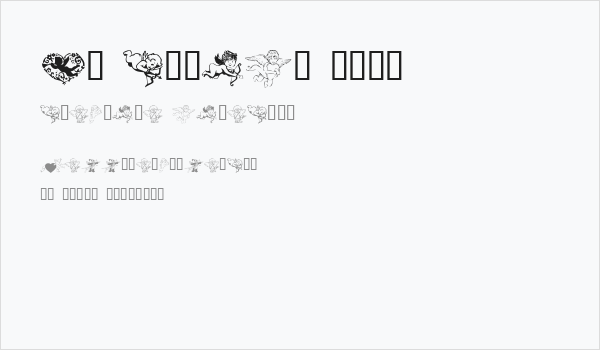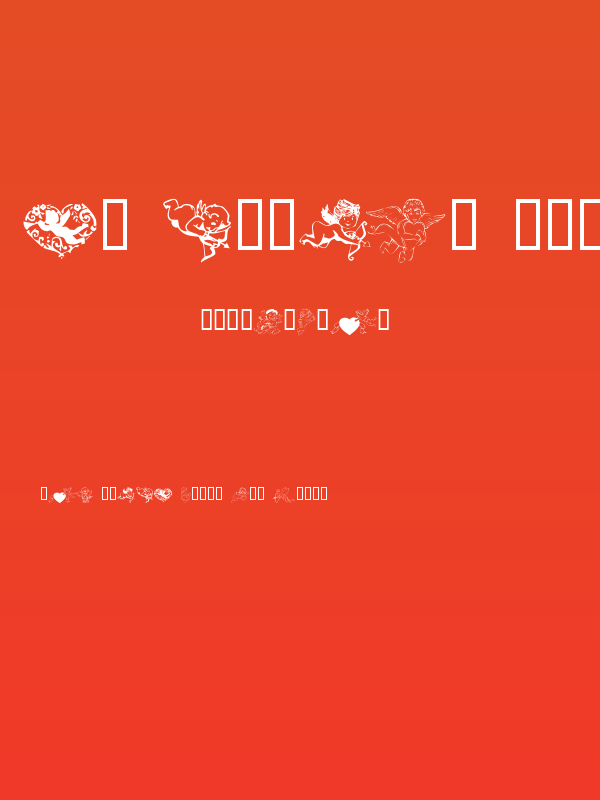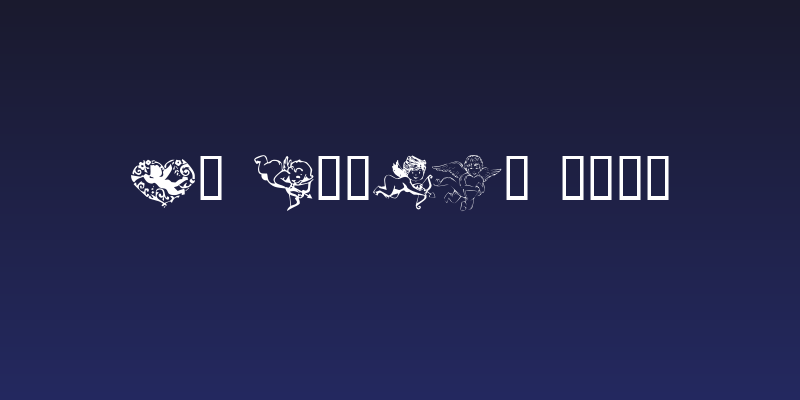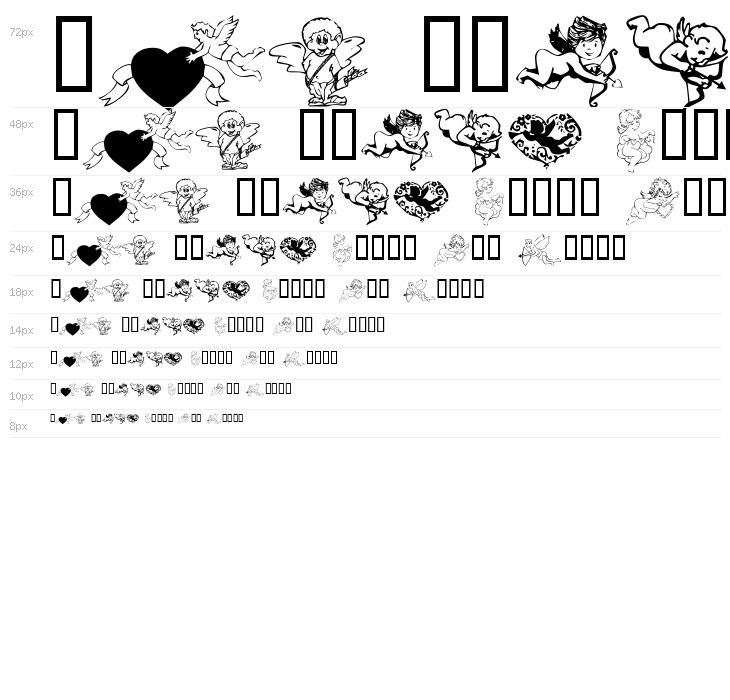
KR Cupids 2003 Font
KR Cupids 2003 Description
This decorative font is characterized by charming illustrations of cupids and hearts, creating a whimsical and romantic theme. Each character is represented by a unique cupid or heart design, making it ideal for projects that require a playful and love-themed aesthetic. The designs are detailed and intricate, capturing the essence of classic cupid imagery with a touch of humor and affection. The font is not suitable for traditional text but serves as a delightful decorative element for creative projects.
| Use Case | Logos, Decorative elements |
| Proposed Projects | Ideal for Valentine's Day cards, wedding invitations, romantic event posters, and any project that requires a playful and love-themed design. |